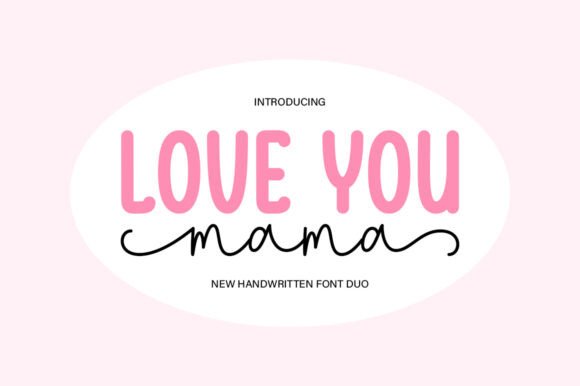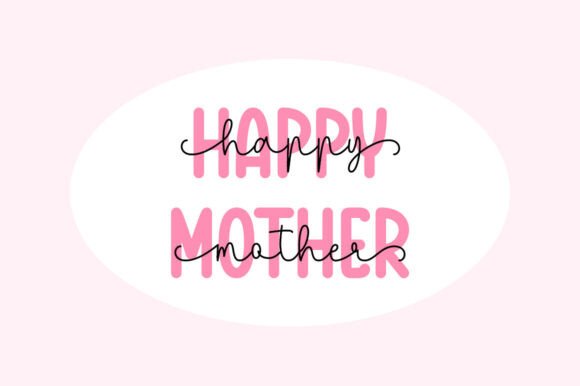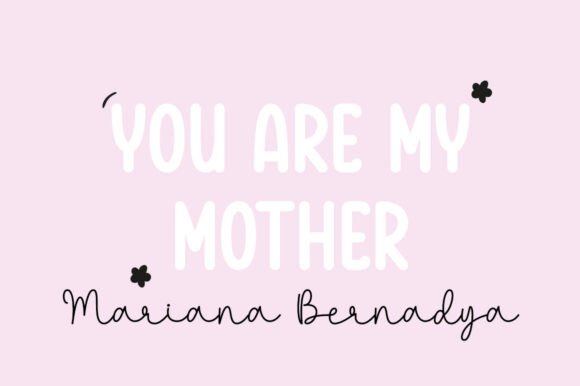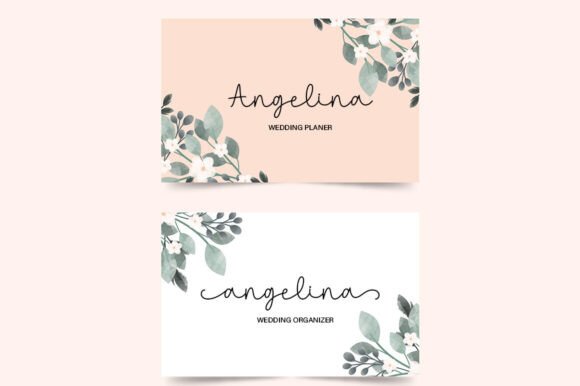
About the Love You Mama Font
Unleash your creativity with Love You Mama Font, a versatile font perfect for a wide range of applications. Love You Mama is a stylish and delicate duo font (sans serif and script) suitable for a wide spectrum of applications. From greeting cards to headlines, this font will guarantee a romantic touch to each of your creations! Love You Mama is PUA encoded which means you can access all of the glyphs and ligatures with ease.
Love You Mama’s delicate script and sans-serif pairing excel in projects requiring a touch of romanticism; wedding invitations, branding for artisanal goods, or social media graphics are ideal applications. Headlines and short text blocks benefit most from its charm; however, avoid using it for body copy or lengthy paragraphs due to its low x-height and potentially reduced readability.
The script’s elegant flourish complements a clean sans-serif like Montserrat or Lato for a balanced, modern feel. For a more vintage aesthetic, pair the script with a serif typeface such as Playfair Display or Merriweather. These pairings maintain legibility while emphasizing the font’s inherent soft, friendly personality.
Its overall aesthetic is best described as romantic and approachable, making it unsuitable for projects demanding a bold or serious tone. The font’s delicate nature works best when supporting a brand with a similar gentle and feminine personality.